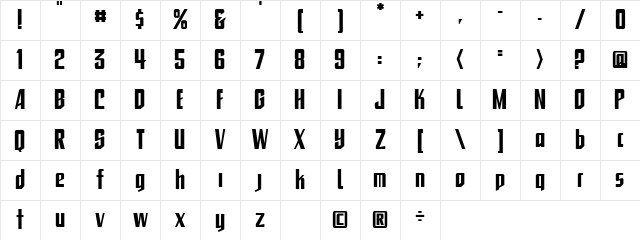
CCToBeContinued Bold Free Font
CCToBeContinued Bold
Design Context for CCToBeContinued
CCToBeContinued is a composed and adaptable typeface that performs quietly and consistently across a wide range of design contexts. Its bold stroke weight gives it real presence on the page.